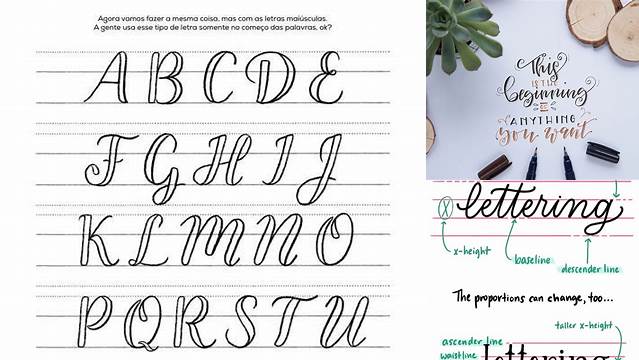
Draw Fonts: Your Step-by-Step Lettering Guide
Hey guys! Ever wanted to create your own unique fonts or add a personal touch to your lettering? You've come to the right place! This drawing fonts tutorial is your ultimate guide to mastering the art of lettering, from the basic principles to advanced techniques. We'll explore everything you need to know to transform your handwriting into stunning typographic masterpieces. Whether you're a beginner just starting out or an experienced artist looking to refine your skills, this guide will provide you with the knowledge and inspiration to unlock your creative potential. So, grab your pencils, pens, and paper, and let's dive into the wonderful world of drawing fonts!
Why Learn to Draw Fonts?
Before we get into the nitty-gritty, let's talk about why learning to draw fonts is such a valuable skill. In today's digital age, it might seem like pre-made fonts are all you need. But there's something incredibly special about hand-drawn lettering. It adds a personal touch, a unique character that no digital font can replicate. Think about it: a hand-drawn font can instantly elevate your artwork, invitations, logos, and so much more. It allows you to express your creativity in a way that's truly your own. Plus, the process of drawing fonts is incredibly therapeutic and rewarding. It's a chance to slow down, focus on the details, and create something beautiful with your own two hands. Moreover, understanding the fundamentals of drawing fonts provides a deep appreciation for typography and its role in visual communication. You'll gain a keen eye for letterforms, spacing, and overall design, which will benefit you in countless creative endeavors.
Essential Tools and Materials
Now that you're excited about drawing fonts, let's gather our supplies! The good news is you don't need a ton of fancy equipment to get started. Here are some essential tools and materials that will help you on your lettering journey:
- Pencils: A variety of pencils, from hard (H) to soft (B) grades, will give you different line weights and shading options. A standard HB pencil is a great starting point for sketching and outlining, while softer pencils like 2B or 4B are ideal for creating darker lines and shading. Experiment with different grades to find what works best for your style.
- Pens: Fineliner pens are perfect for creating clean, crisp lines in your font designs. Different thicknesses (e.g., 0.1mm, 0.3mm, 0.5mm) will allow you to vary the weight of your lines and add detail. Brush pens are also fantastic for calligraphy and creating dynamic, expressive lettering.
- Paper: Smooth paper, like marker paper or Bristol board, is ideal for drawing fonts because it prevents your pens from bleeding or feathering. Graph paper or dot grid paper can be helpful for maintaining consistent letter spacing and alignment, especially when you're just starting out. Tracing paper is also useful for experimenting with different letterforms and layouts.
- Erasers: A good quality eraser is essential for correcting mistakes and refining your designs. A kneaded eraser is particularly useful for lifting graphite without damaging the paper, while a plastic eraser is better for erasing larger areas.
- Rulers and Straightedges: These tools will help you create straight lines and consistent letter heights, which are crucial for achieving a polished and professional look. A T-square is especially helpful for drawing horizontal lines, while a triangle can be used to create precise angles.
- Optional Tools: You might also find it helpful to have a compass for drawing circles and curves, a French curve for creating smooth, flowing lines, and a light box for tracing and refining your designs.
Understanding Basic Lettering Terminology
Before we start drawing, let's familiarize ourselves with some key lettering terminology. Understanding these terms will help you communicate effectively about your designs and analyze the structure of different fonts.
- Baseline: The imaginary line on which the letters sit. It's the foundation of your lettering and helps maintain consistent alignment.
- Cap Height: The height of uppercase letters from the baseline.
- X-Height: The height of lowercase letters, typically measured from the baseline to the top of the letter 'x'. The x-height significantly impacts the readability and overall appearance of a font.
- Ascender: The part of a lowercase letter that extends above the x-height, such as the top of 'b', 'd', 'f', 'h', 'k', and 'l'.
- Descender: The part of a lowercase letter that extends below the baseline, such as the bottom of 'g', 'j', 'p', 'q', and 'y'.
- Serif: A small stroke or embellishment at the end of a letter's main strokes. Serifs are often associated with traditional and formal fonts.
- Sans-serif: Fonts without serifs. Sans-serif fonts tend to look more modern and clean.
- Stroke: The main lines that form a letter. Understanding stroke weight and contrast is crucial for creating visually appealing fonts.
- Counter: The enclosed space within a letter, such as the space inside the 'o', 'p', 'q', 'a', and 'b'. The shape and size of the counter play a significant role in the letter's legibility.
Step-by-Step Guide to Drawing Fonts
Okay, guys, now for the fun part – actually drawing fonts! Let's break down the process into manageable steps.
1. Choose Your Font Style
The first step is to decide what kind of font you want to create. Do you envision a classic serif font, a modern sans-serif, a whimsical script, or something entirely unique? Consider the purpose of your font and the overall aesthetic you want to achieve. Research different font styles for inspiration and identify the characteristics you find appealing. For example, you might be drawn to the elegance of a Didone serif, the clean lines of a Helvetica sans-serif, or the fluidity of a Copperplate script. Experimenting with different styles will help you develop your own personal style and discover what you enjoy creating.
2. Sketch Your Letters
Start by sketching out your letters lightly with a pencil. Focus on the basic shapes and proportions. Don't worry about making them perfect at this stage; this is just about getting the overall form down. Use guidelines to ensure consistency in letter height, x-height, and baseline. Sketching each letter multiple times allows you to refine the shapes and experiment with variations. Pay attention to the negative space around the letters, as this is just as important as the letterforms themselves. Think about how the letters will connect and flow together to create a cohesive word or phrase.
3. Refine Your Letterforms
Once you're happy with your initial sketches, it's time to refine your letterforms. Use a darker pencil or a pen to define the outlines and add details. Pay close attention to the stroke weight, contrast, and overall balance of each letter. Are the curves smooth and consistent? Are the straight lines crisp and clean? Look at the counters (the enclosed spaces within letters) and ensure they are visually harmonious. This stage is all about polishing your design and making sure each letter is well-formed and legible. You might need to make adjustments to the spacing between letters to achieve a balanced and visually appealing composition.
4. Add Weight and Contrast
Now, let's add some visual interest by varying the stroke weight and creating contrast in your letters. This is especially important for serif fonts, where the serifs themselves can add a significant amount of contrast. Thicker strokes will create a bolder, more impactful look, while thinner strokes will give a more delicate and refined appearance. Experiment with different combinations to see what works best for your design. Consider using thicker strokes for the vertical lines and thinner strokes for the horizontal lines, or vice versa. You can also add contrast by varying the thickness of the strokes within a single letter, creating a dynamic and eye-catching effect.
5. Consider Spacing and Kerning
Spacing is crucial for legibility and visual appeal. The space between letters (kerning) and the space between words should be consistent and balanced. Too much space can make the letters look disjointed, while too little space can make them appear crowded and difficult to read. Pay close attention to the shape of each letter and how it interacts with its neighbors. Some letter combinations, like 'AV' or 'WA', might require more kerning than others. Use your eye to judge the spacing and make adjustments as needed. It can be helpful to squint at your drawing to see the overall balance of the spacing and identify any areas that need tweaking.
6. Ink Your Final Design
Once you're completely satisfied with your pencil drawing, it's time to ink your final design. Use a fineliner pen or brush pen to carefully trace over your pencil lines. This will give your font a clean, professional look. If you're using a brush pen, you can vary the pressure to create different stroke weights and add a calligraphic flair. Take your time and be precise, as the inking stage is where your font really comes to life. Allow the ink to dry completely before erasing your pencil lines. This will prevent smudging and ensure a crisp, clean final product.
7. Digitalize Your Font (Optional)
If you want to use your font digitally, you'll need to scan or photograph your drawing and convert it into a digital format. There are several software programs available for creating fonts, such as FontLab Studio, Glyphs, and FontForge (which is free and open-source). These programs allow you to refine your letterforms, adjust spacing and kerning, and generate font files that you can use on your computer. Digitalizing your font allows you to share it with others and use it in a wide range of applications, from graphic design to web development.
Tips for Improving Your Font Drawing Skills
- Practice Regularly: Like any skill, drawing fonts takes practice. The more you practice, the better you'll become. Set aside some time each day or week to dedicate to lettering and font design.
- Study Typography: Learn about the history and principles of typography. Understanding different font styles, their characteristics, and their uses will help you make informed design decisions.
- Analyze Existing Fonts: Pay attention to the fonts you see every day in books, magazines, websites, and advertisements. Analyze their letterforms, spacing, and overall design. What makes them effective? What could be improved?
- Seek Inspiration: Look for inspiration in the world around you. Nature, architecture, art, and even everyday objects can provide inspiration for your font designs.
- Experiment with Different Styles: Don't be afraid to try new things and experiment with different font styles. You might discover a style that you love or develop a unique style of your own.
- Get Feedback: Share your work with others and ask for feedback. Constructive criticism can help you identify areas for improvement and refine your skills.
- Inconsistent Letter Height and Spacing: Pay close attention to maintaining consistent letter height and spacing. Inconsistent spacing can make your font look unprofessional and difficult to read.
- Uneven Stroke Weight: Ensure that the stroke weight of your letters is consistent throughout your design. Varying the stroke weight intentionally can add visual interest, but uneven stroke weight can make your font look amateurish.
- Poor Kerning: Kerning is the adjustment of space between individual letters. Poor kerning can make your font look awkward and difficult to read. Pay close attention to the spacing between letters and make adjustments as needed.
- Overly Complex Designs: When you're just starting out, it's best to keep your designs relatively simple. Overly complex designs can be difficult to execute and may not be as legible.
- Neglecting Negative Space: Negative space (the space around the letters) is just as important as the letterforms themselves. Pay attention to the negative space and ensure it is balanced and visually appealing.
Conclusion: Unleash Your Inner Typographer
So, there you have it, guys! A comprehensive drawing fonts tutorial to get you started on your lettering journey. Remember, mastering the art of drawing fonts takes time, patience, and practice. But with dedication and the right guidance, you can unlock your creative potential and create stunning typographic masterpieces. Embrace the process, experiment with different styles, and most importantly, have fun! The world of lettering is vast and exciting, and there's always something new to learn and discover. Now go out there and unleash your inner typographer!
FAQ About Drawing Fonts
What are the best tools for drawing fonts?
The best tools for drawing fonts include pencils (HB, 2B, 4B), fineliner pens (various thicknesses), brush pens, smooth paper (marker paper, Bristol board), erasers (kneaded and plastic), rulers, and straightedges. Optional tools include a compass, French curve, and light box.
How do I choose the right font style for my project?
Consider the purpose of your font and the overall aesthetic you want to achieve. Research different font styles for inspiration and identify the characteristics you find appealing. Classic serif fonts are often used for formal documents, while modern sans-serif fonts are popular for websites and graphic design. Script fonts add a personal touch to invitations and artwork.
How can I improve my letter spacing and kerning?
Pay close attention to the shape of each letter and how it interacts with its neighbors. Some letter combinations, like 'AV' or 'WA', might require more kerning than others. Use your eye to judge the spacing and make adjustments as needed. Squinting at your drawing can help you see the overall balance of the spacing.
What are some common mistakes to avoid when drawing fonts?
Common mistakes include inconsistent letter height and spacing, uneven stroke weight, poor kerning, overly complex designs, and neglecting negative space. Pay attention to these areas and make adjustments as needed.
How can I digitalize my hand-drawn font?
You can scan or photograph your drawing and convert it into a digital format using font creation software such as FontLab Studio, Glyphs, or FontForge. These programs allow you to refine your letterforms, adjust spacing and kerning, and generate font files that you can use on your computer.